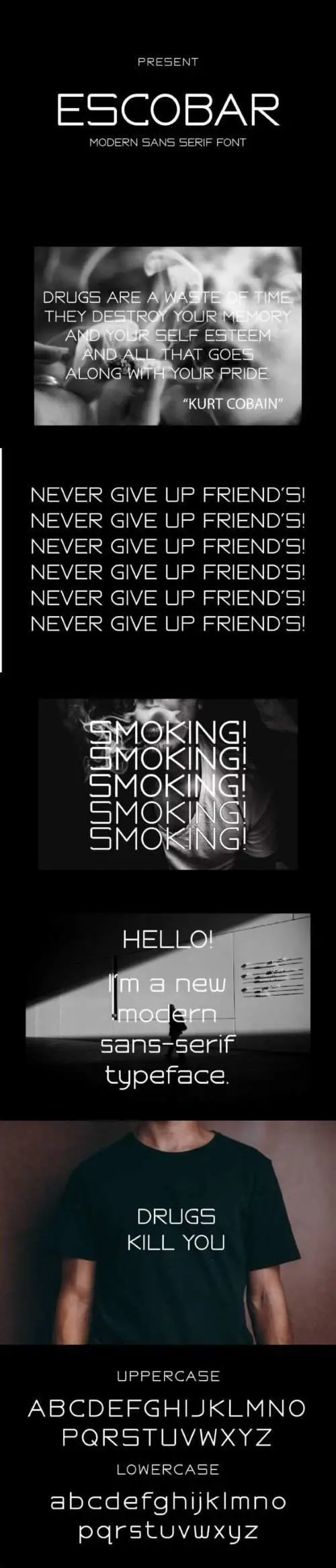
ESCOBAR - Sans Serif Font Family
Hi everybody! Ready to make your brand splash? If you need to create a big, bold logo for your business, work on a poster for an event, or whatever your project is, the Vastine sans serif font is the one for you